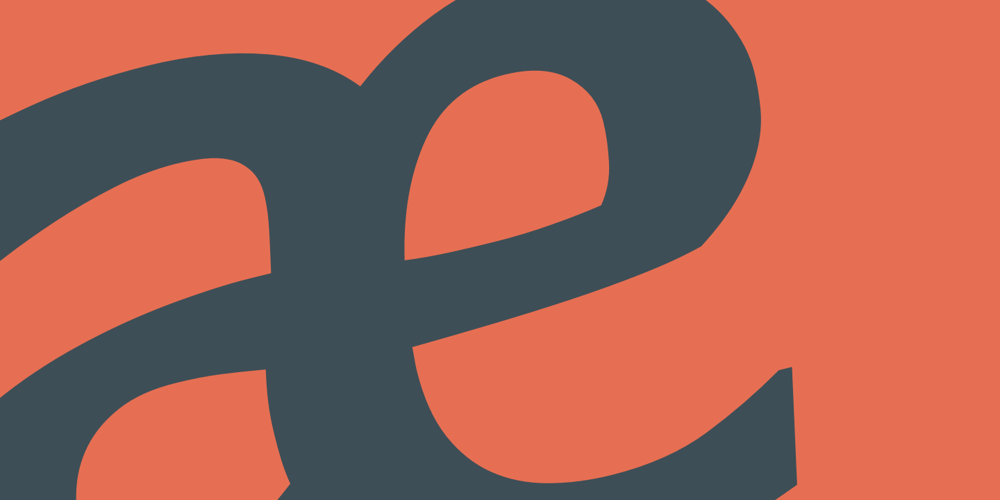
Carter Sans Font Family was designed by Matthew Carter, Dan Reynolds and published by ITC. Carter Sans contains 8 styles and family package options. Carter Sans: a wonderfully accomplished humanist sans serif with a beautiful twistMatthew Carter has been involved in designing typefaces since before many of us were in diapers. With dozens of great typefaces to his name, he has finally put his name to one. His newest typeface, Carter Sans™, brings together those decades of wisdom, experience, and technical expertise. The result is a humanist sans with flared strokes and terminals, a feature that has more in common with the chisel rather than the broad nib pen. Subtle detail, elegant curves, and graceful proportions make for an exceptional and distinctive sans serif typeface, that Carter himself describes as a ‘humanist stressed sans.’ This imbues the letterforms with a dynamism sometimes lacking in humanist sans serifs. Use it to striking effect in all-caps settings, or for extended texts.Carter Sans was recently used to great effect by Michael Bierut and Joe Marianek of Pentagram, in their work for the Art Directors Club.Carter Sans italics are unfussy, with the only remnants of cursiveness in letters like e and f. It sets beautifully with the roman. Award winning type designer Dan Reynolds (Malabar™ et al.) collaborated with Carter to produce a type that looks just magnificent in print; it would also make a fine choice for that letterpress project! Certainly a welcome addition to anyone’s type library.